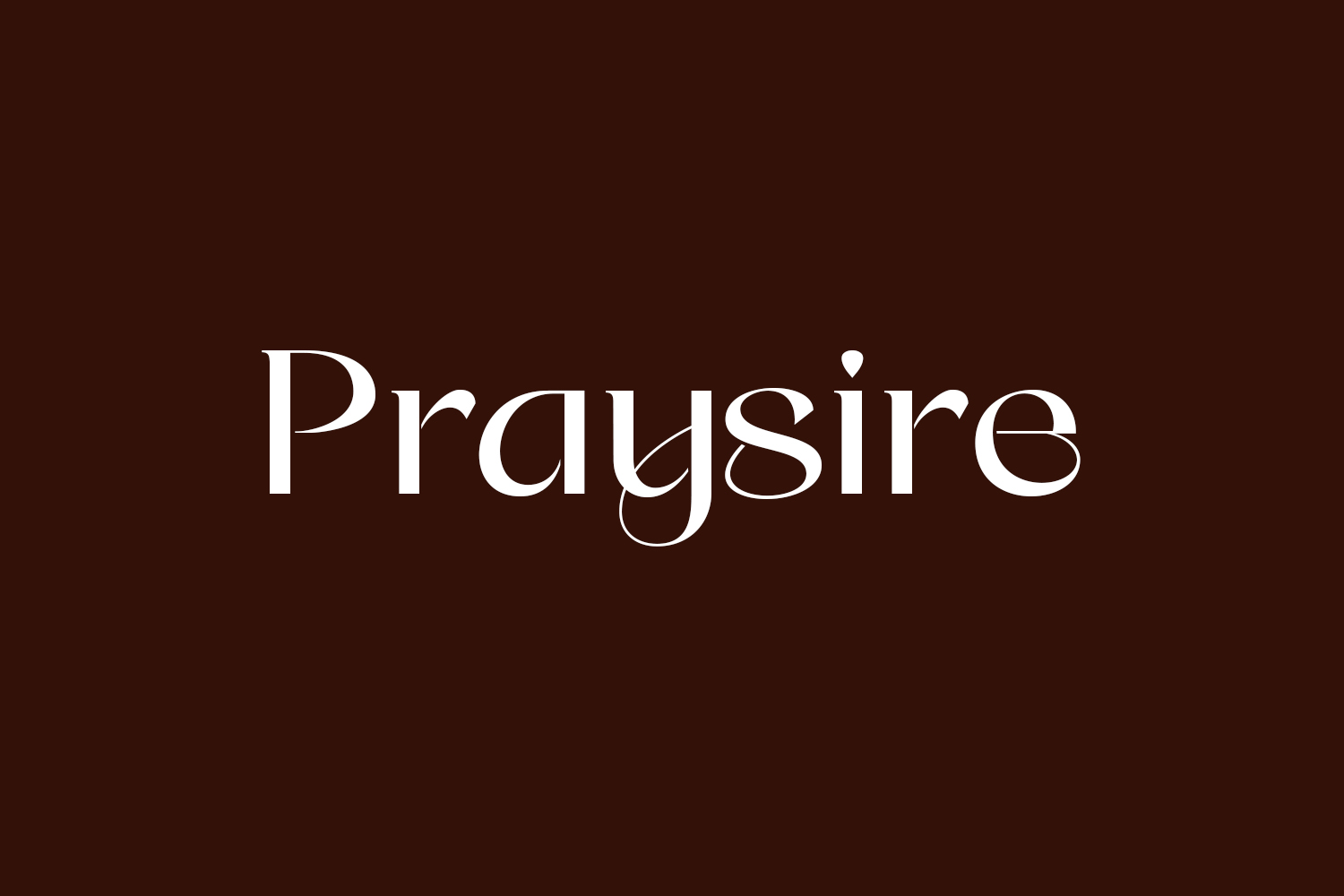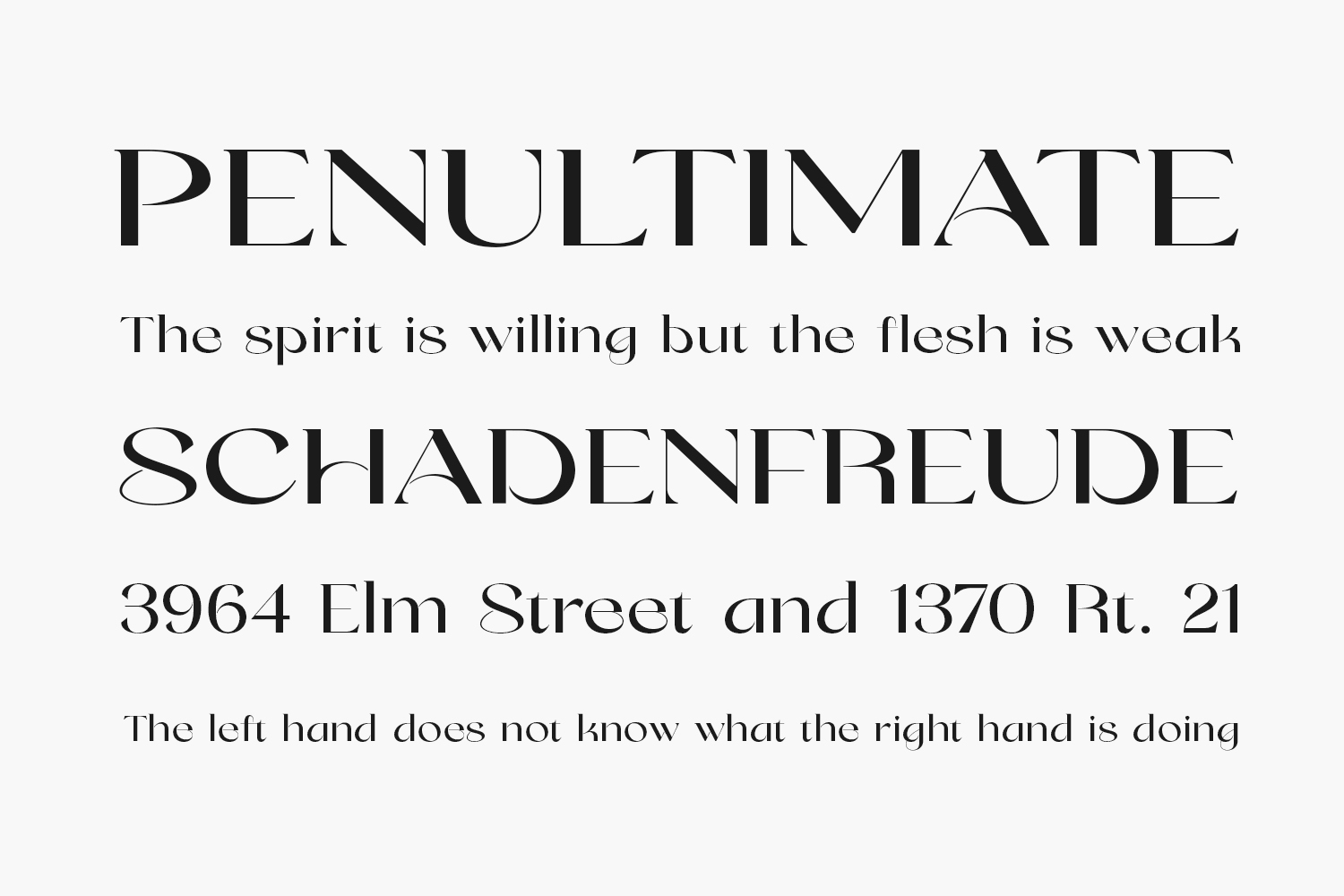
Praysire Free Font is an elegant and stylish serif font. Its distinct and well balanced letters make this font a masterpiece. Praysire Free Font is free for personal use only. Please purchase the full version for commercial use.
Designed by Letterhend Studio